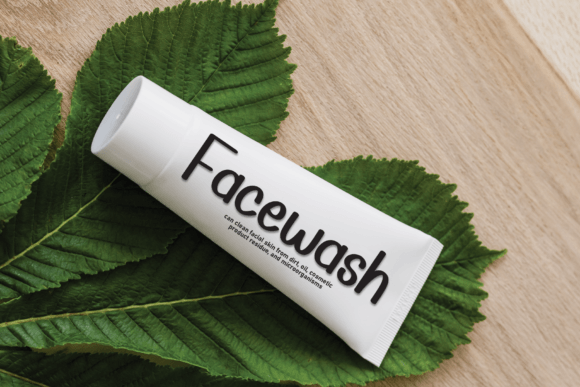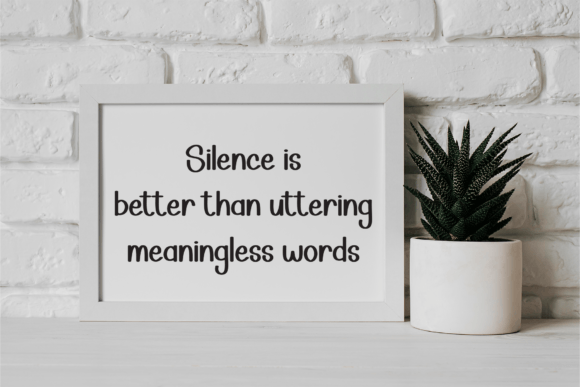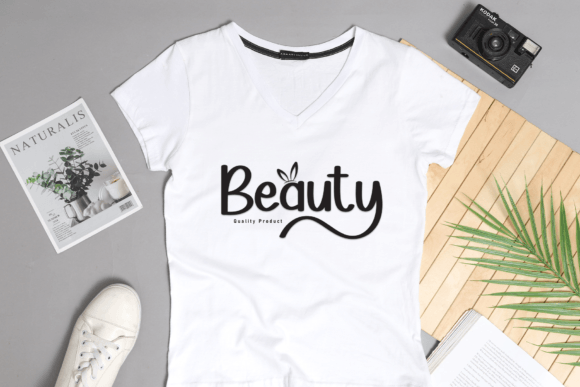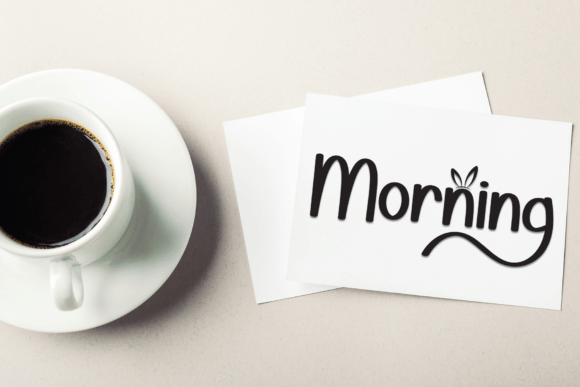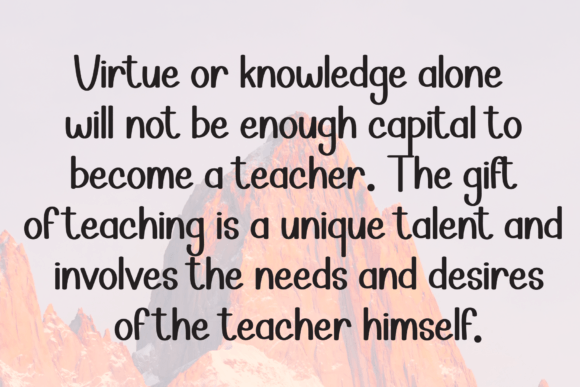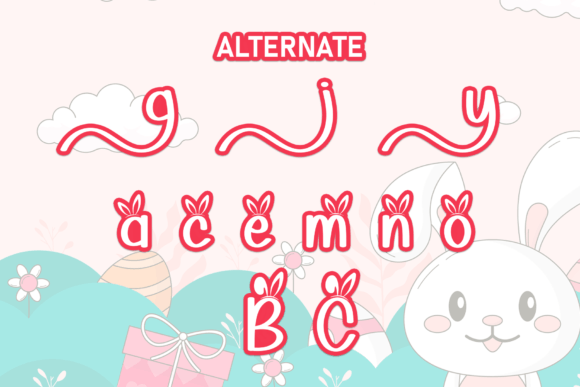
Cute Bunny Font: The Ultimate Choice for Designers and Crafters
Are you a designer or crafter looking for a font that can add a touch of whimsy and charm to your creations? Look no further than the Cute Bunny Font! This lovely and timeless handwritten font is the perfect choice for creating eye-catching logos, branding, and quotes that will capture the attention of your audience.
What Makes Cute Bunny Font So Special?
The Cute Bunny Font is a unique and beautiful font that features a distinctive handwritten style. Every letter has a unique and beautiful touch, which will make your design come alive! The font is carefully crafted to provide a warm and friendly feel, making it perfect for a wide range of design projects, from logos and branding to quotes and social media graphics.
Key Features of Cute Bunny Font
- Handwritten style: The Cute Bunny Font features a beautiful handwritten style that adds a personal touch to your designs.
- Unique lettering: Every letter in the font has a unique and beautiful touch, making your designs stand out from the crowd.
- Timeless appeal: The font has a timeless appeal that will not go out of style anytime soon, making it a great investment for designers and crafters.
Why Choose Cute Bunny Font?
There are many reasons why designers and crafters choose the Cute Bunny Font for their projects. Here are a few:
- Eye-catching designs: The font is perfect for creating eye-catching logos, branding, and quotes that will capture the attention of your audience.
- Versatility: The font can be used for a wide range of design projects, from digital graphics to print materials.
- Emotional connection: The font’s warm and friendly feel helps to create an emotional connection with your audience, making your designs more relatable and engaging.
Design Ideas Using Cute Bunny Font
The Cute Bunny Font is a versatile font that can be used for a wide range of design projects. Here are a few ideas to get you started:
- Logos and branding: Use the font to create eye-catching logos and branding materials that will help your business stand out.
- Quotes and social media graphics: Use the font to create inspiring quotes and social media graphics that will engage your audience.
- Stationery and cards: Use the font to create beautiful stationery and cards that will add a personal touch to your correspondence.
In conclusion, the Cute Bunny Font is a lovely and timeless handwritten font that is perfect for designers and crafters looking to add a touch of whimsy and charm to their creations. With its unique lettering, timeless appeal, and ease of use, it’s the perfect choice for creating eye-catching logos, branding, and quotes. So why wait? Try out the Cute Bunny Font today and see the difference it can make in your designs!